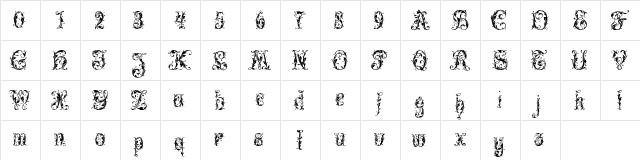
Leafy glade Regular
Design Context for Leafy glade Typeface
Leafy glade is a composed and adaptable typeface that performs quietly and consistently across a wide range of design contexts.